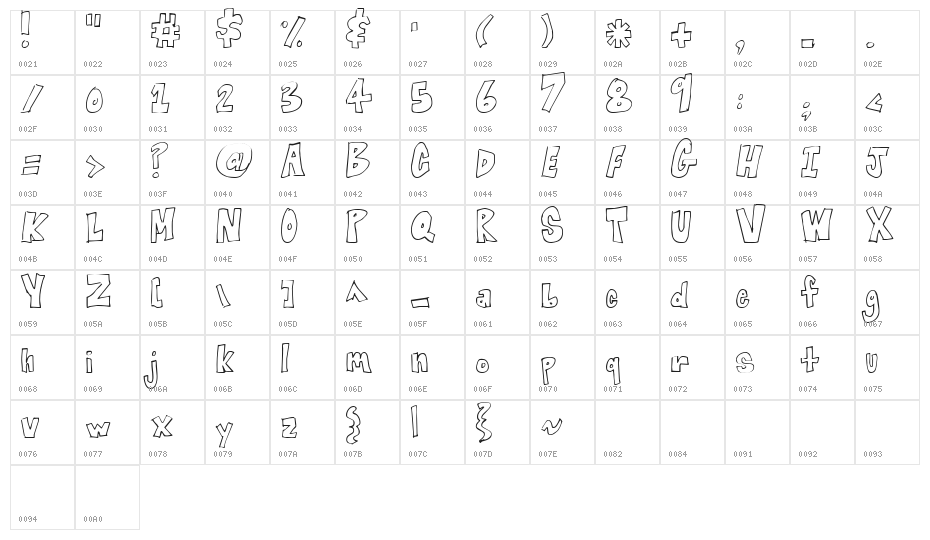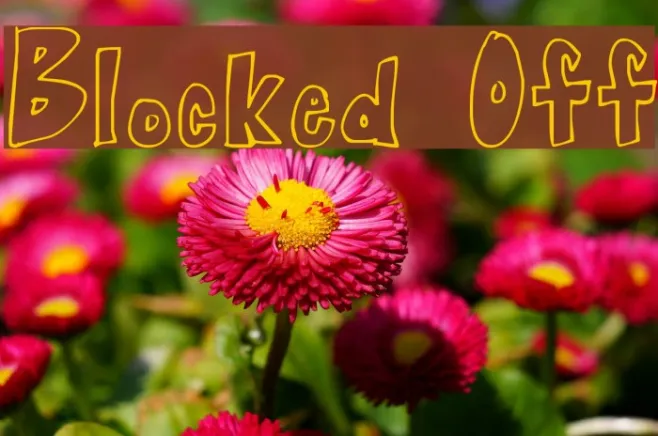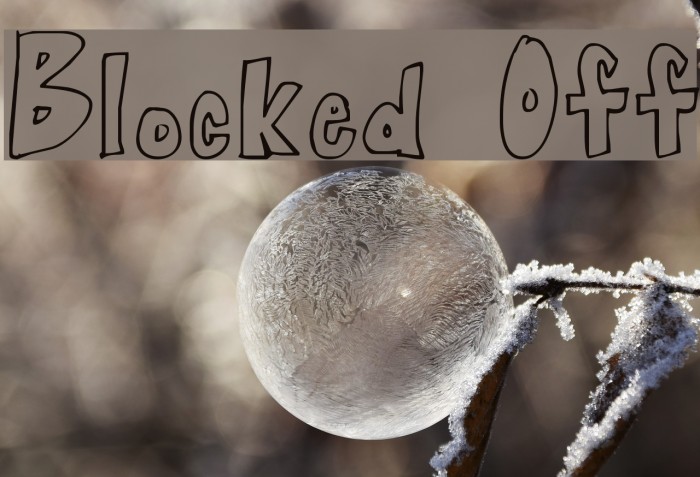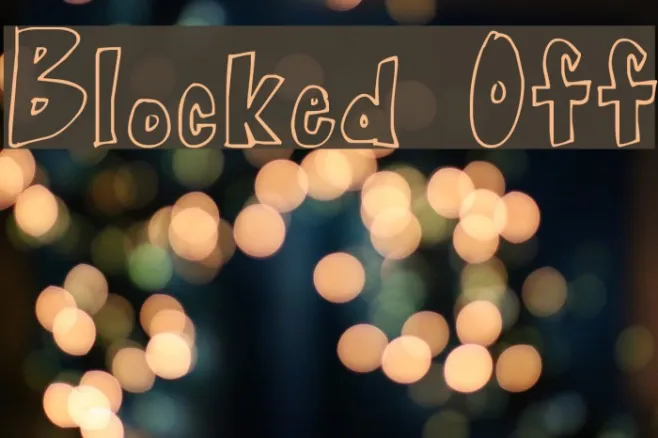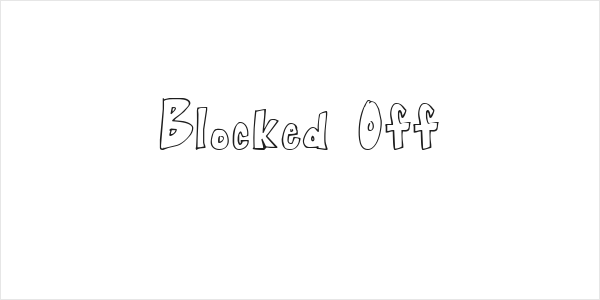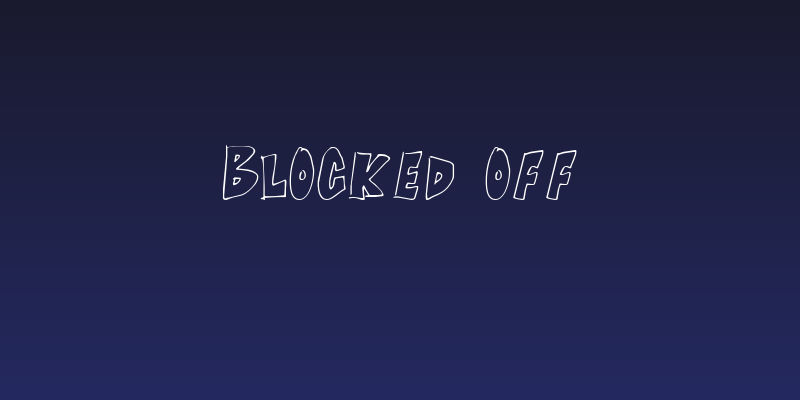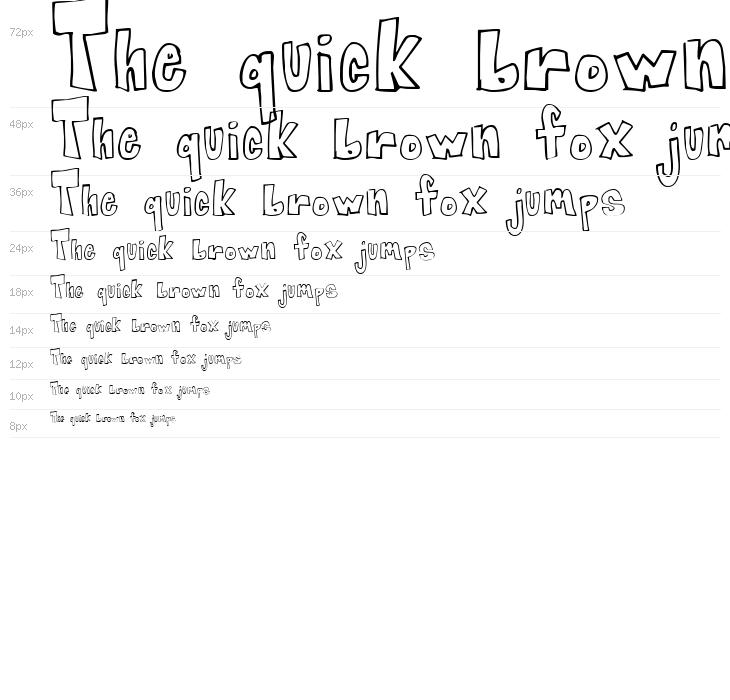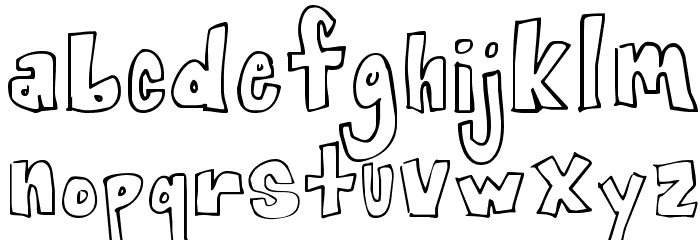
Blocked Off Font
Blocked Off Description
This playful and bold font features a hand-drawn, cartoonish style with thick, uneven strokes that give it a lively and informal appearance. The uppercase and lowercase letters are characterized by exaggerated curves and angles, creating a whimsical and energetic feel. The numbers and special characters maintain this playful aesthetic, making the font suitable for creative and fun projects. Its irregular shapes and bold outlines make it stand out, adding a touch of personality and charm to any design.
| Overall Style | Playful, Cartoonish, Informal |
| Proposed Projects | Ideal for children's books, comic strips, playful branding, posters, and party invitations. |